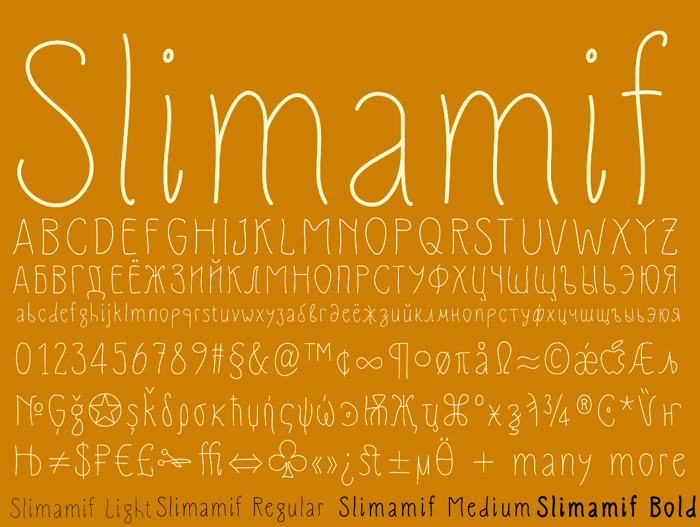
Slimamif Font
Slimamif is an art-nouveau/handwritten style font with extended support for Cyrillic, other European languages and all the languages from within Russian Federation. It was created using iFontMaker. Latest version is available free at http://di.mk/slimamif or http://dimka.com/fonts